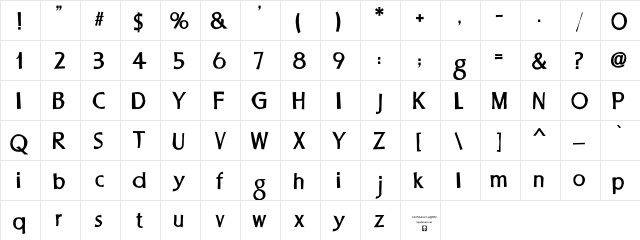
LHF Stevens Percepta Demi Regular
| Foundry | Arthur Vanson for Letterhead Fonts |
| Designer | Arthur Vanson |
Design Context for LHF Stevens Percepta Demi Typeface
LHF Stevens Percepta Demi offers clean, dependable letterforms without strong stylistic allegiance, making it a practical choice for designers who need flexibility.